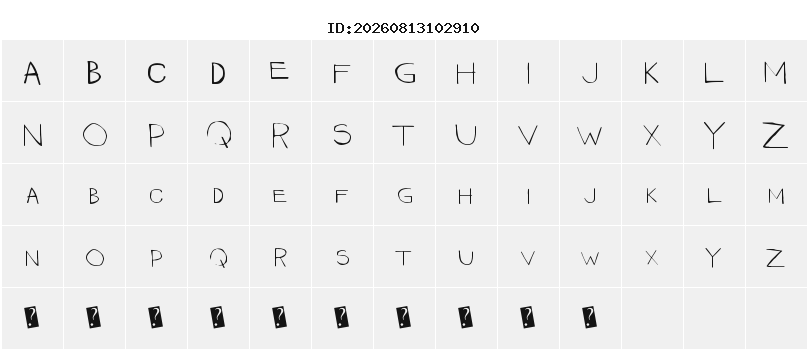
QuicklyCaps Preview
• Font Name: QuicklyCaps
• Font ID: QuicklyCaps:Version 1.00
• Full Font Name: QuicklyCaps
• Version: Version 1.00 February 3, 2013, initial release
• PostScript Name: QuicklyCaps
• Character Count: 54
• Designer: Max Infeld
• Manufacturer: Xerographer Fonts
• Description: This font at in Chico,CA Xerographer Studios
About QuicklyCaps.ttf
QuicklyCaps.ttf is a modern, elegant sans-serif font designed for ultimate readability and visual harmony. Perfect for branding, headlines, web design, and print materials.